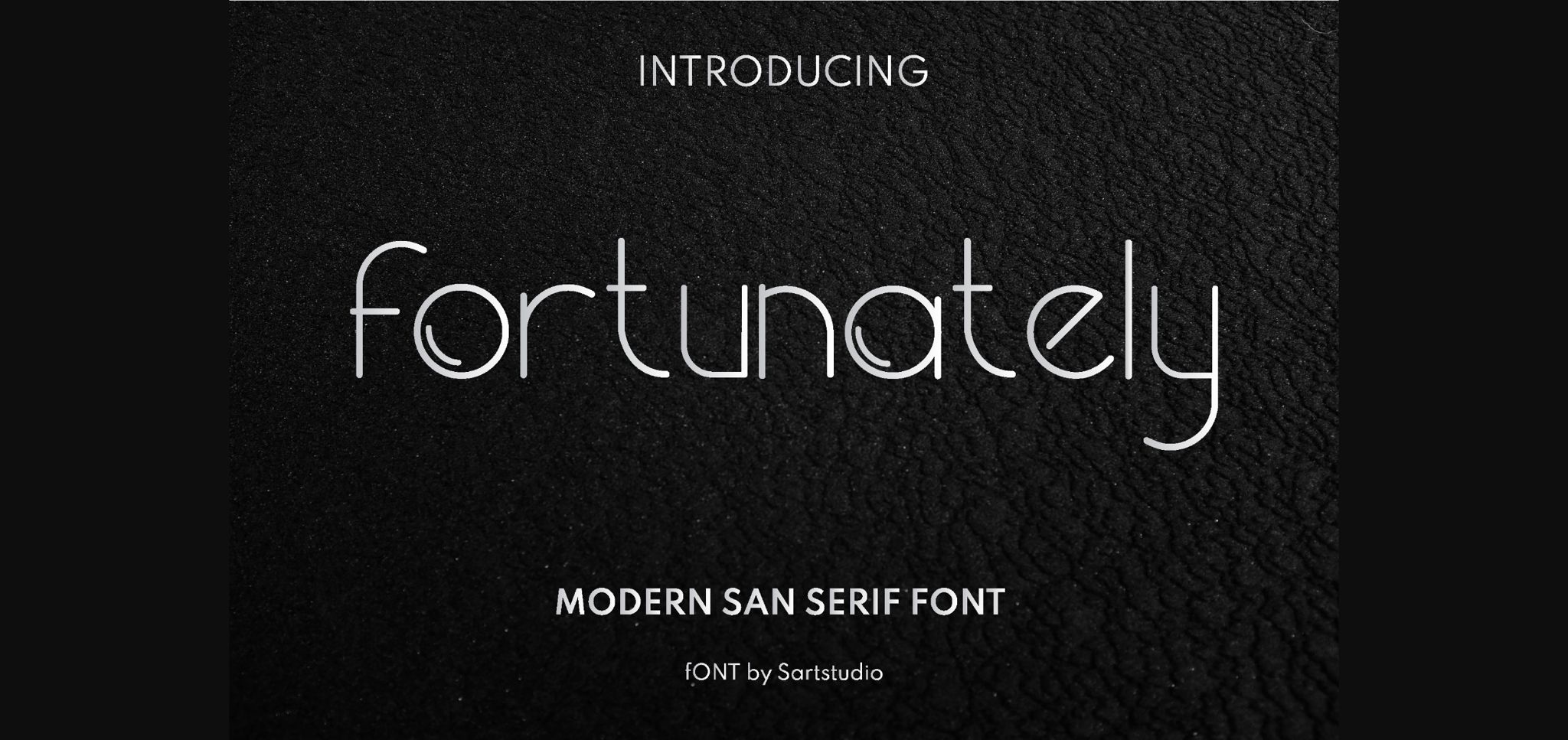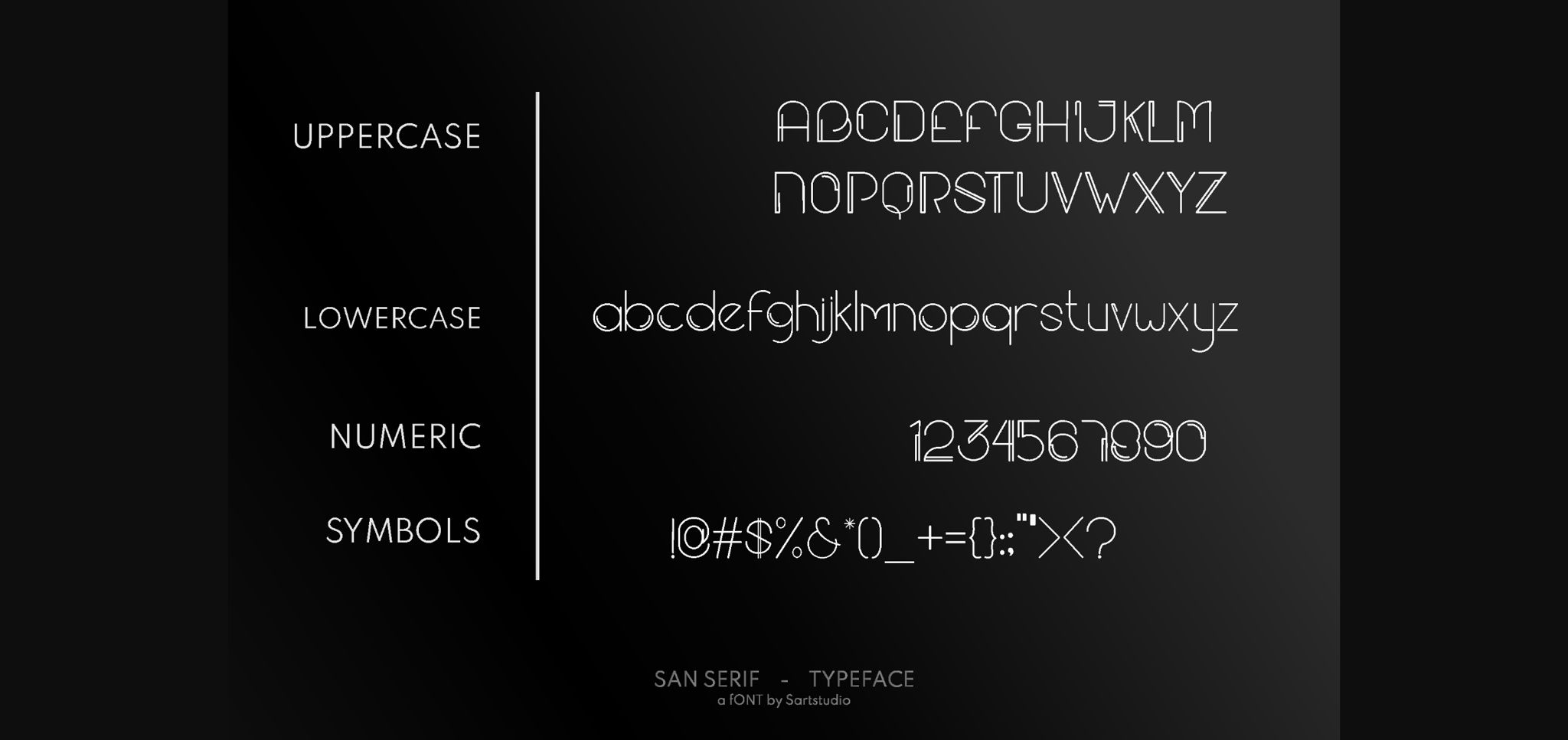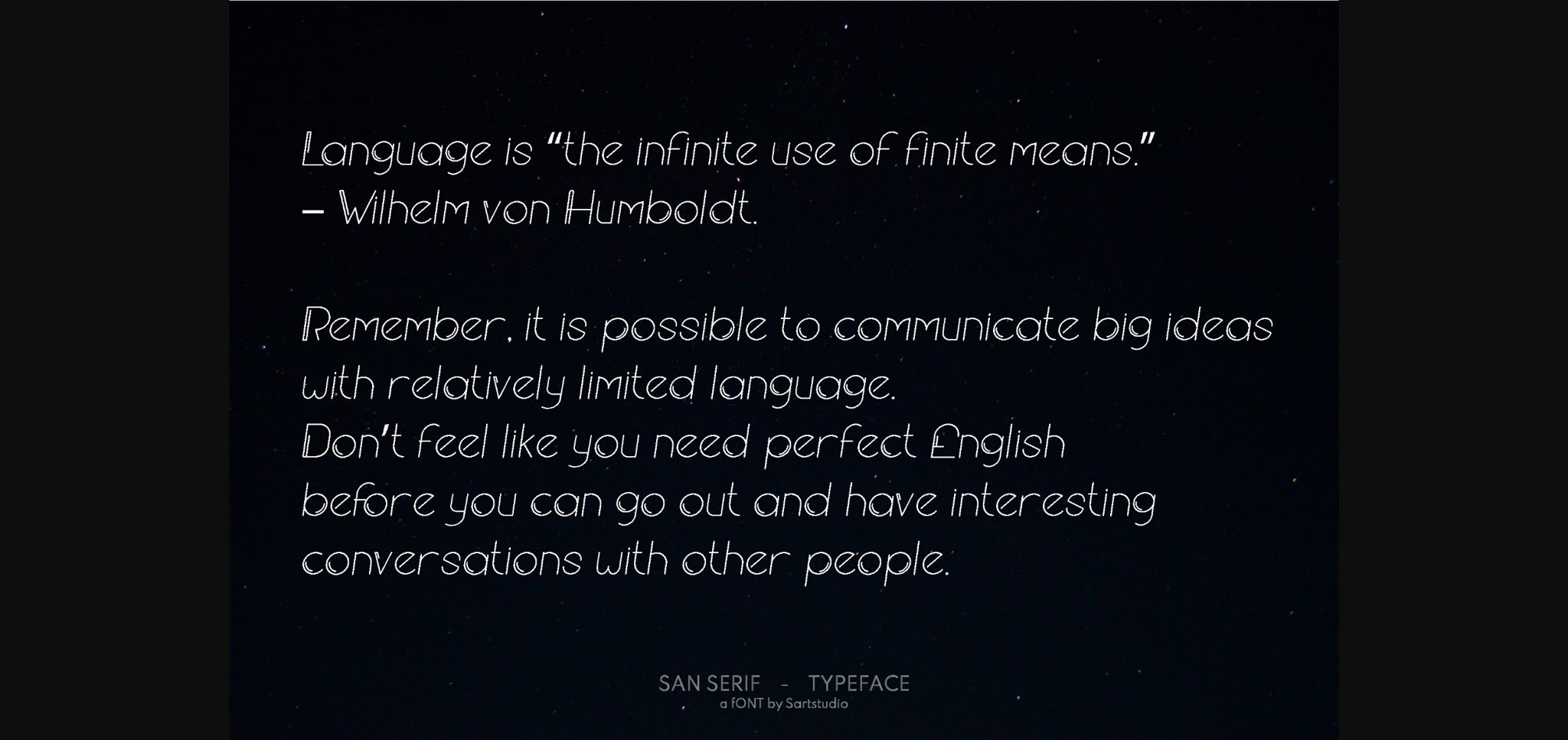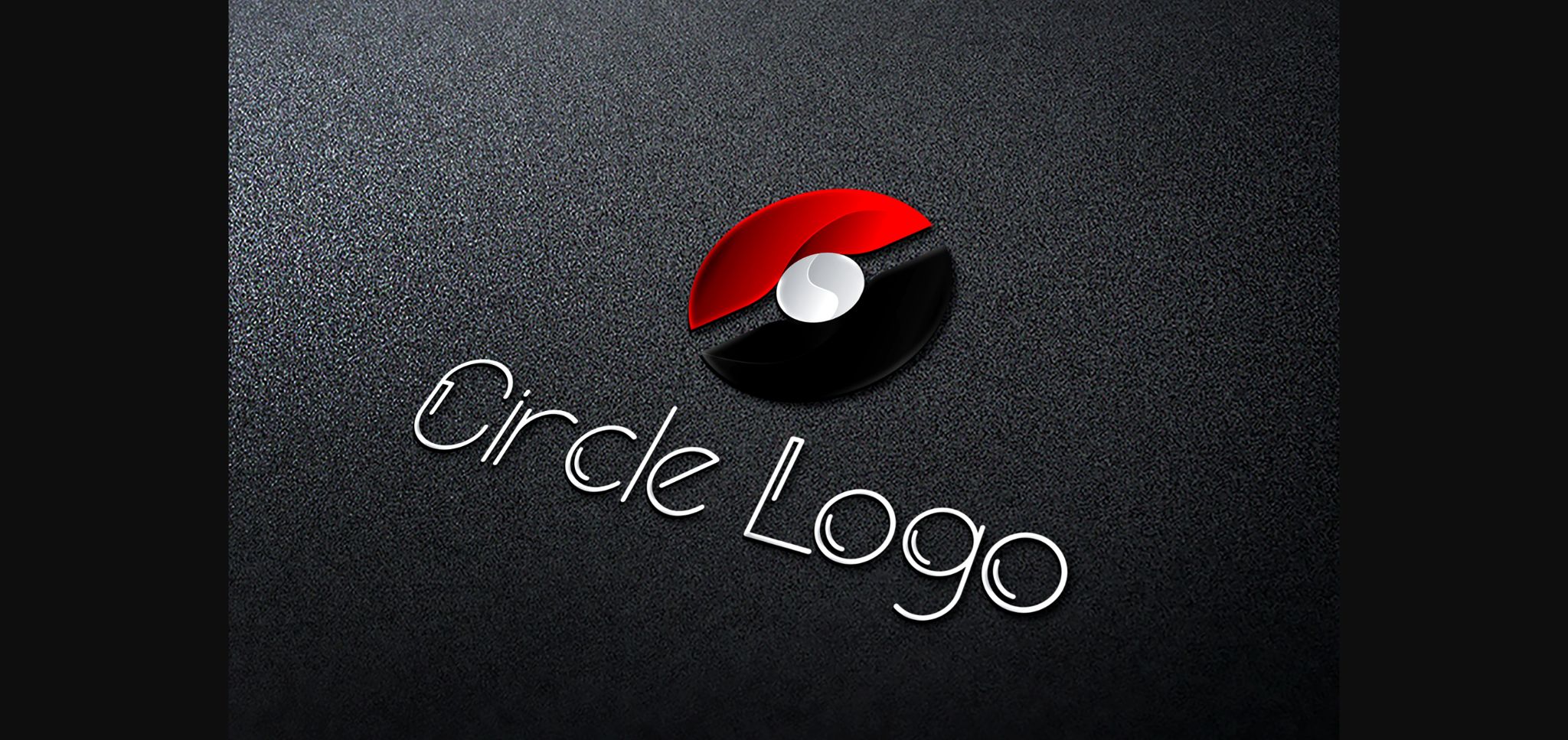
Fortunately is a simple and modern sans serif font with a futuristic design. With its neat and beautiful arrangement of letters, this typeface will look outstanding in both formal and non-formal designs.